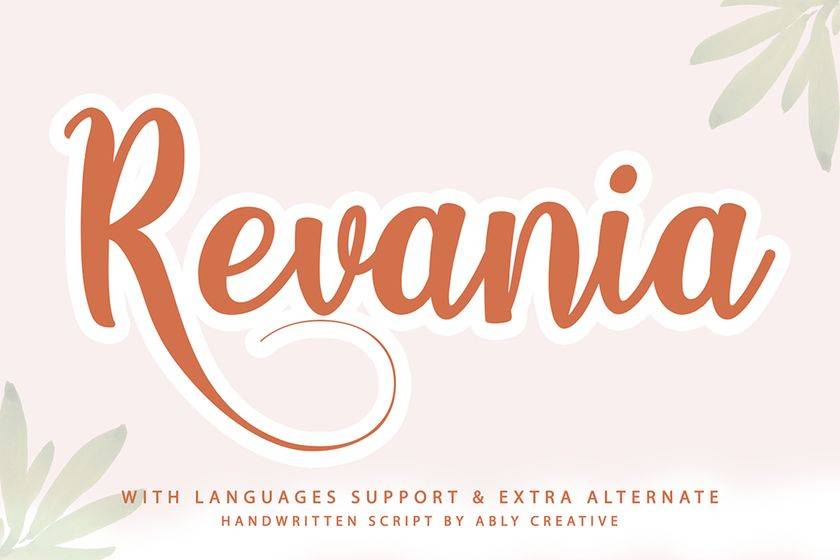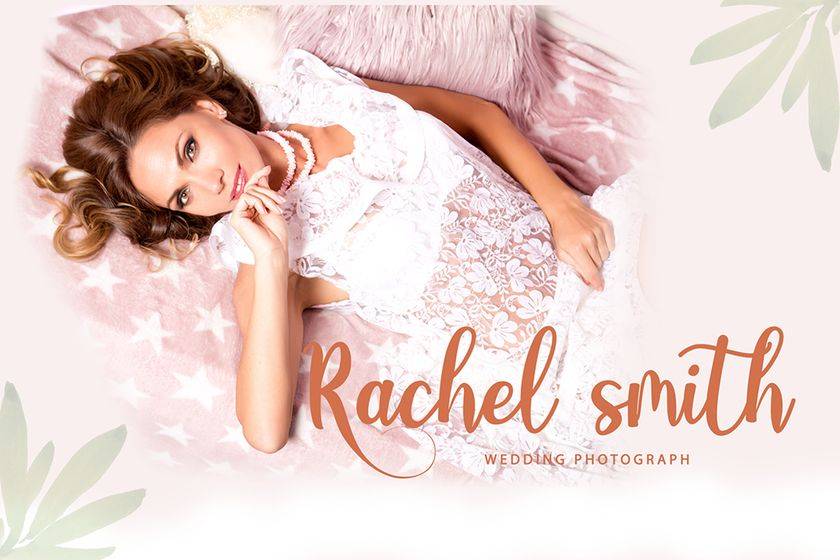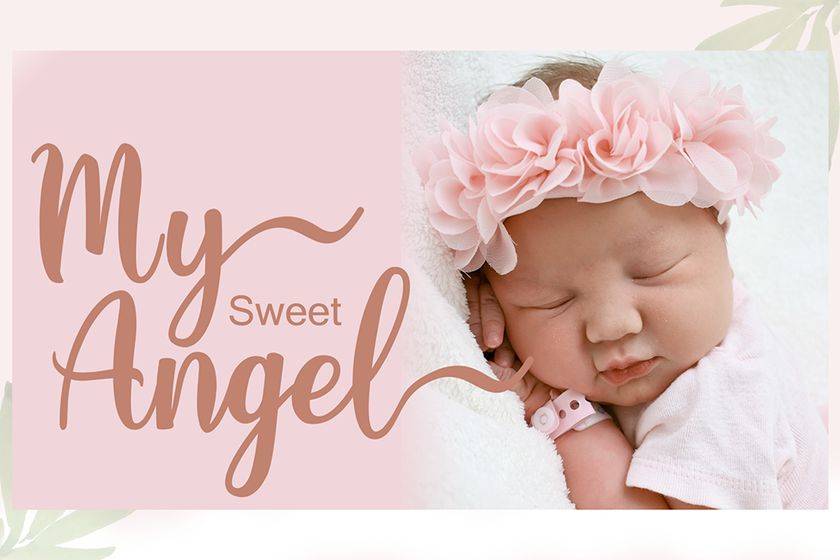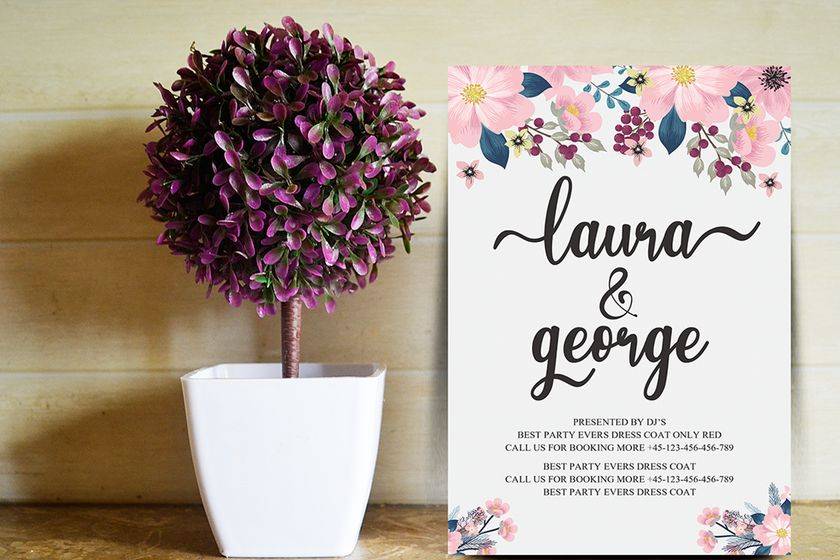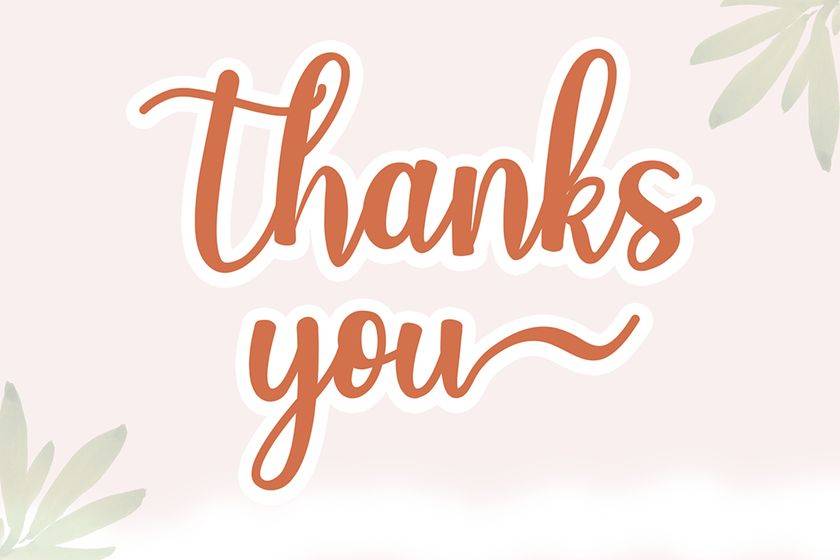
Revania is an elegant script font with a smooth, flowing style and moderate contrast that evokes a warm, handcrafted feel. Its neat, connected letterforms with a calligraphic touch make it ideal for inviting branding, wedding invitations, and creative headlines where a personal, stylish impression is desired. This font works beautifully in designs that seek to combine sophistication with a casual, friendly spirit.
Revania Font
About Revania Font
| Designer | Revania demo;2020 created by Amrullah; Ably Creative |